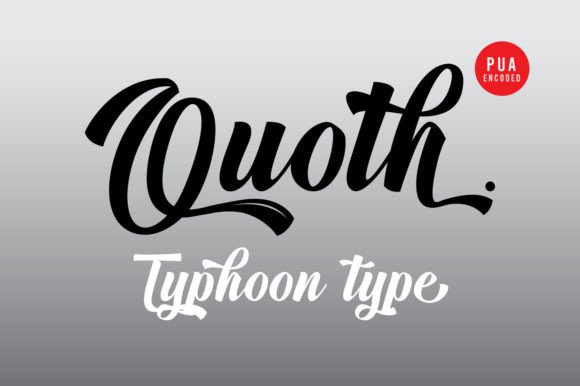
Introducing Quoth Font: A Brushstroke Masterpiece for Creative Design
Immerse yourself in the world of typography with Quoth Font, a captivating script font that embodies the essence of brush strokes and freeform handwriting. Its graceful curves and intricate details evoke a sense of elegance and fluidity, making it an enchanting choice for a wide range of design applications.
Quoth is a versatile artist that seamlessly adapts to diverse projects, from print media to apparel and branding. Its unique blend of thick and thin strokes creates a dynamic visual rhythm, while its intricate details add depth and sophistication to every letterform. The result is a font that commands attention and leaves a lasting impression.
With Quoth in your design arsenal, you can craft visually stunning magazines, ads, and clothing designs that exude an aura of artistry and professionalism. Its effortless readability ensures that your messages are conveyed with clarity and impact, even in extensive texts.
Quoth excels in creating eye-catching headlines and subheadings that grab the attention of your audience. Its elegant letterforms add a touch of sophistication to body copy, elevating your designs to new heights of refinement.
Designers seeking a font that embodies beauty, elegance, and readability need look no further than Quoth. Its versatility and adaptability make it a must-have for any creative toolbox. Download Quoth today and embark on a typographic journey that will leave your audience captivated.